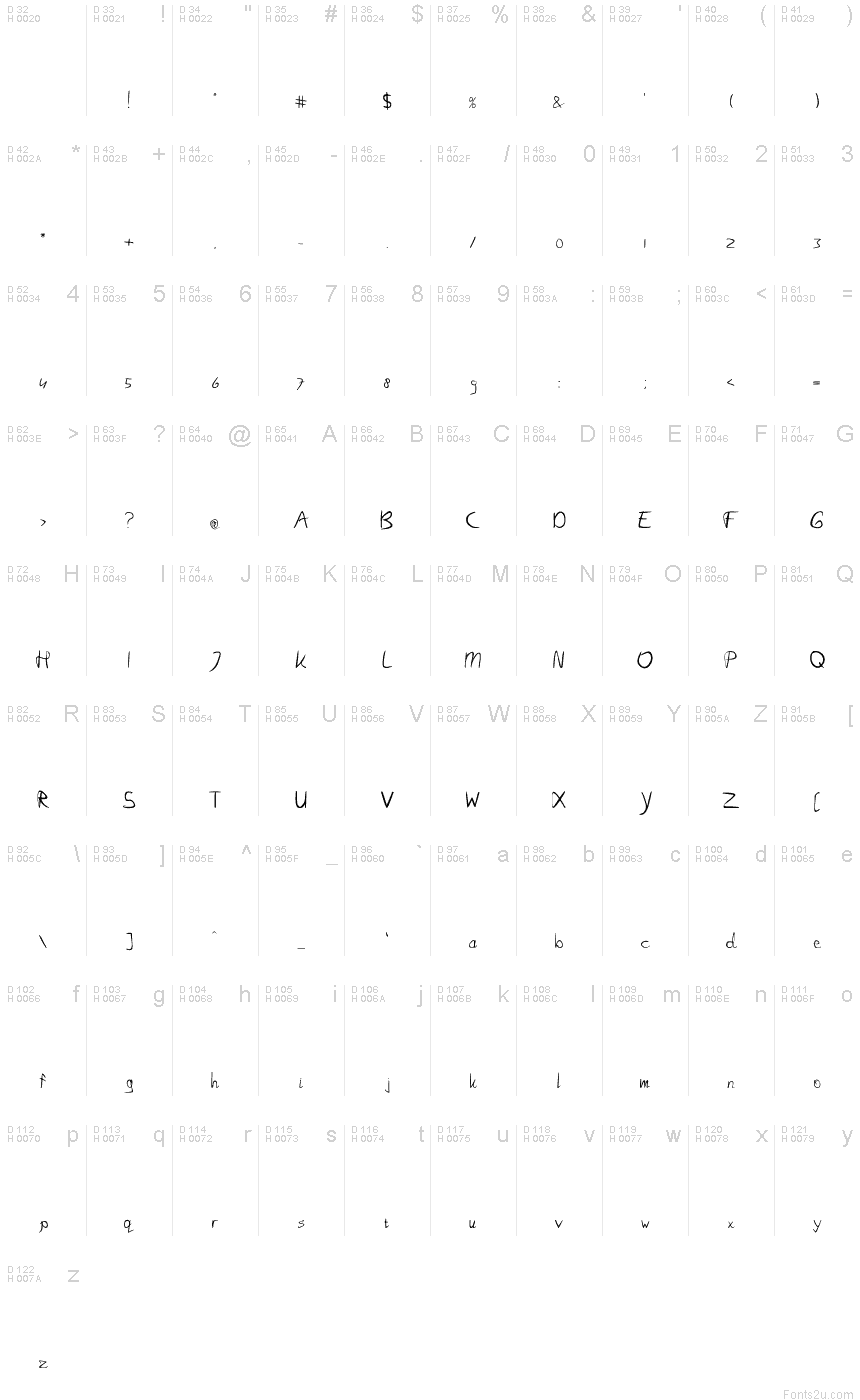
BlaiseHand 2.0
BlaiseHand 2.0 font by BlaiseHand is a free handwritten typeface with tall, looping letters that feel like they’ve been sketched in one smooth, inky motion. The strokes are slim and even, giving the script a breezy, airy look that stays easy to read even at smaller sizes. It has a friendly, slightly quirky rhythm that feels personal without getting messy.
Using BlaiseHand 2.0, you can bring a warm, hand-scrawled touch to greeting cards, casual logos, planner pages, social posts, product packaging, and blog headers. This free font shines on projects that want to feel approachable and human, like boutique brands or DIY craft layouts. Pair it with a clean, neutral sans serif for body copy and let BlaiseHand 2.0 handle the headlines and short phrases.